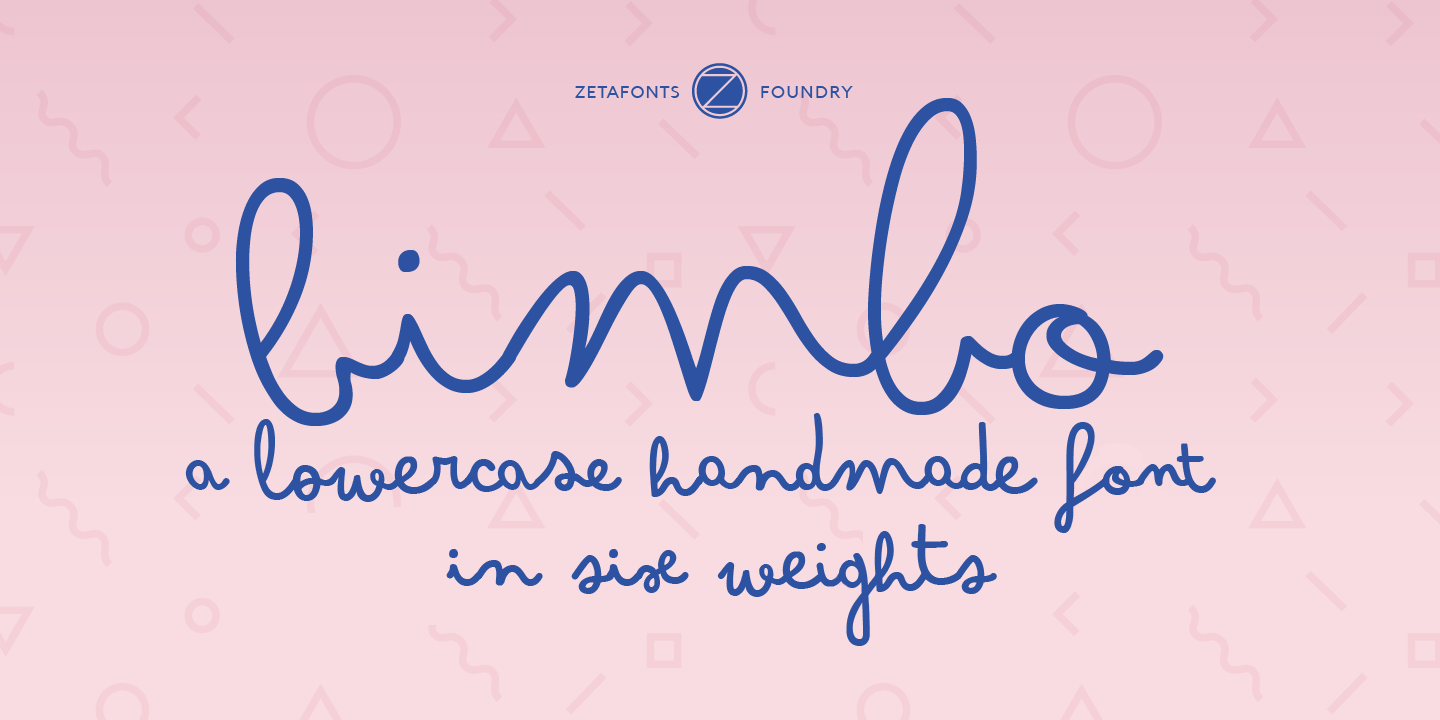
Bimbo Font Free Download is a playful and dynamic handwritten typeface that brings a fun, casual vibe to any creative project. With its irregular lines and quirky character, this font is perfect for posters, children’s books, greeting cards, social media graphics, and branding that needs a friendly and approachable touch. Its energetic style instantly adds personality and warmth to your designs.
The natural flow and hand-drawn feel of Bimbo make it ideal for informal layouts where creativity and authenticity are key. It maintains excellent readability while giving a relaxed and spontaneous look. Bimbo Font Free Download allows designers to inject creativity and joy into their work effortlessly.
Available in various styles and with a wide range of alternate characters, Bimbo offers flexibility and fun customization options for any project. Its lively, charming aesthetic is sure to captivate audiences and add a distinctive flair to your designs. Download Bimbo Font Free Download today and bring an extra spark of creativity to your next project.